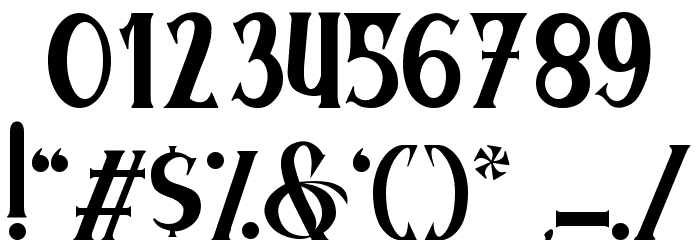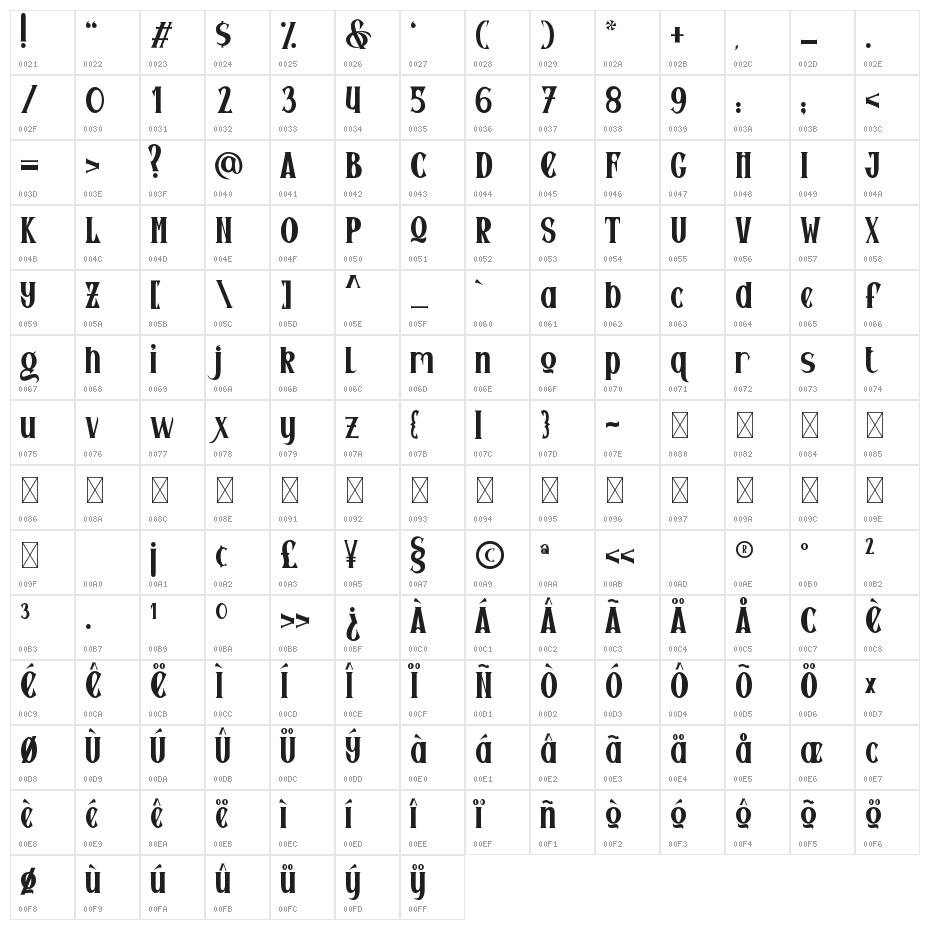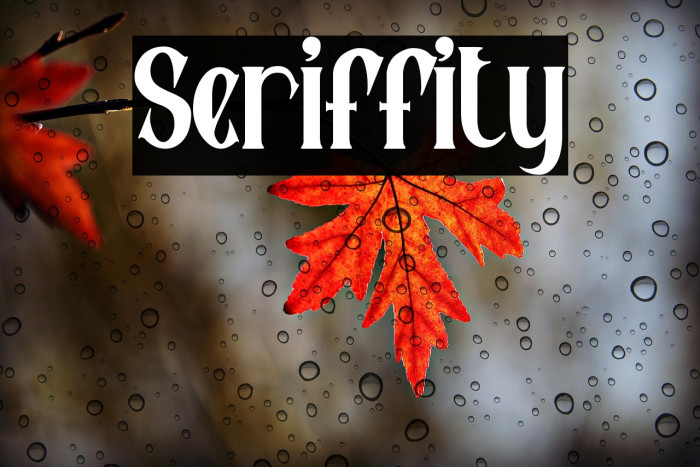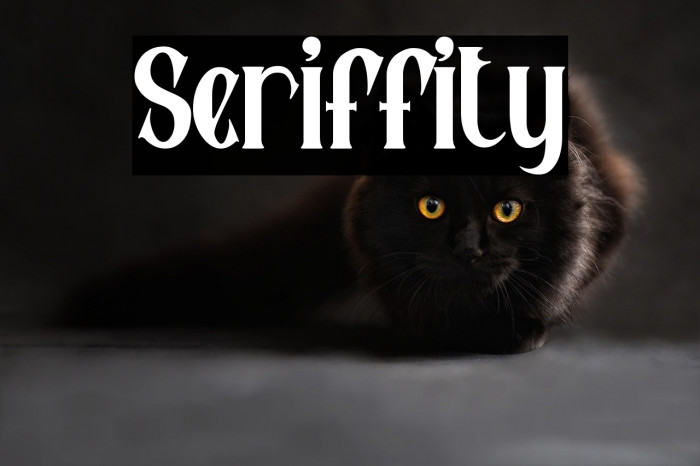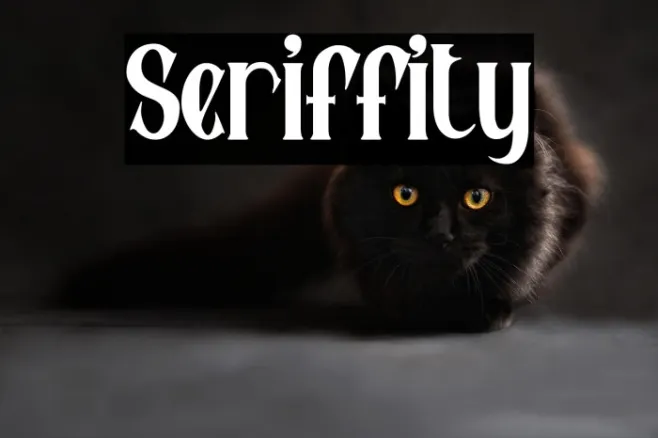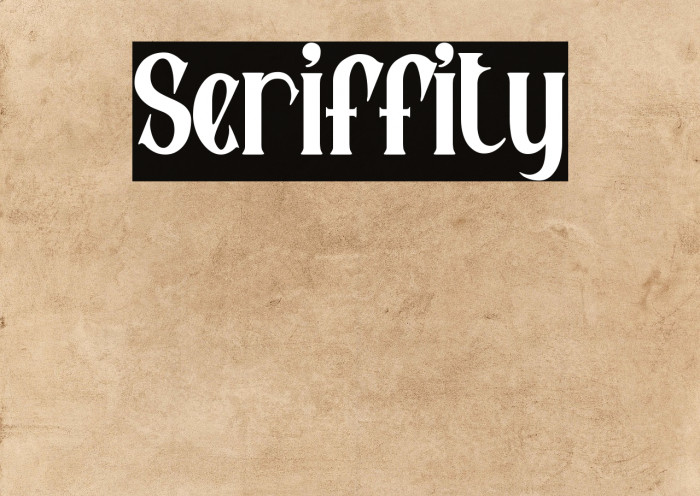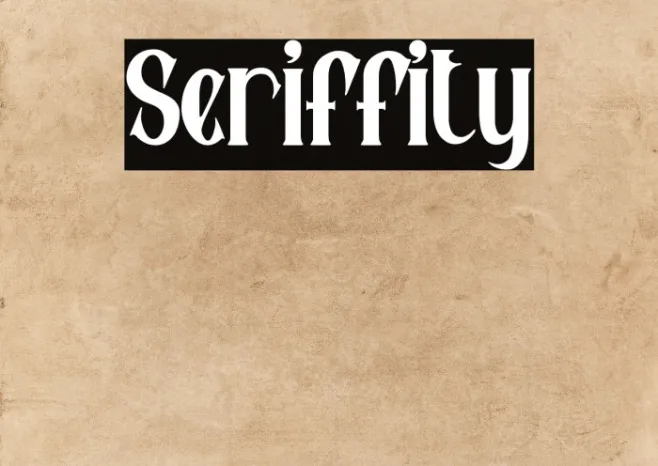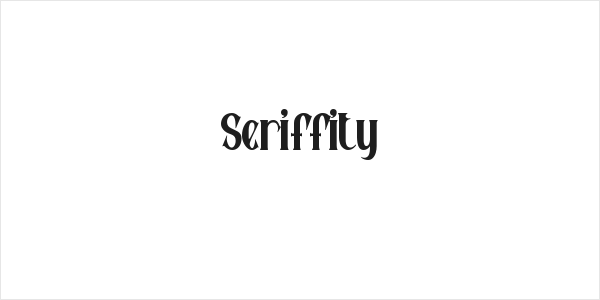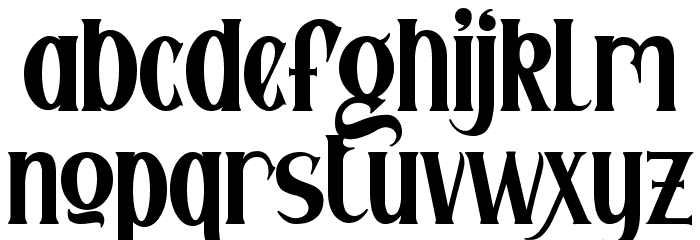
Seriffity Font
Seriffity Description
This font exhibits a bold and dramatic style with pronounced serifs and a high contrast between thick and thin strokes. The uppercase letters are tall and commanding, while the lowercase letters maintain a consistent flow with unique curves and flourishes. The numbers are equally bold, ensuring visibility and impact. Special characters are designed with flair, adding to the font's overall decorative appeal. This typeface is perfect for making a statement, with its striking presence and artistic details.
| Proposed Projects | Ideal for branding, poster design, book covers, and any project requiring a strong visual impact. |